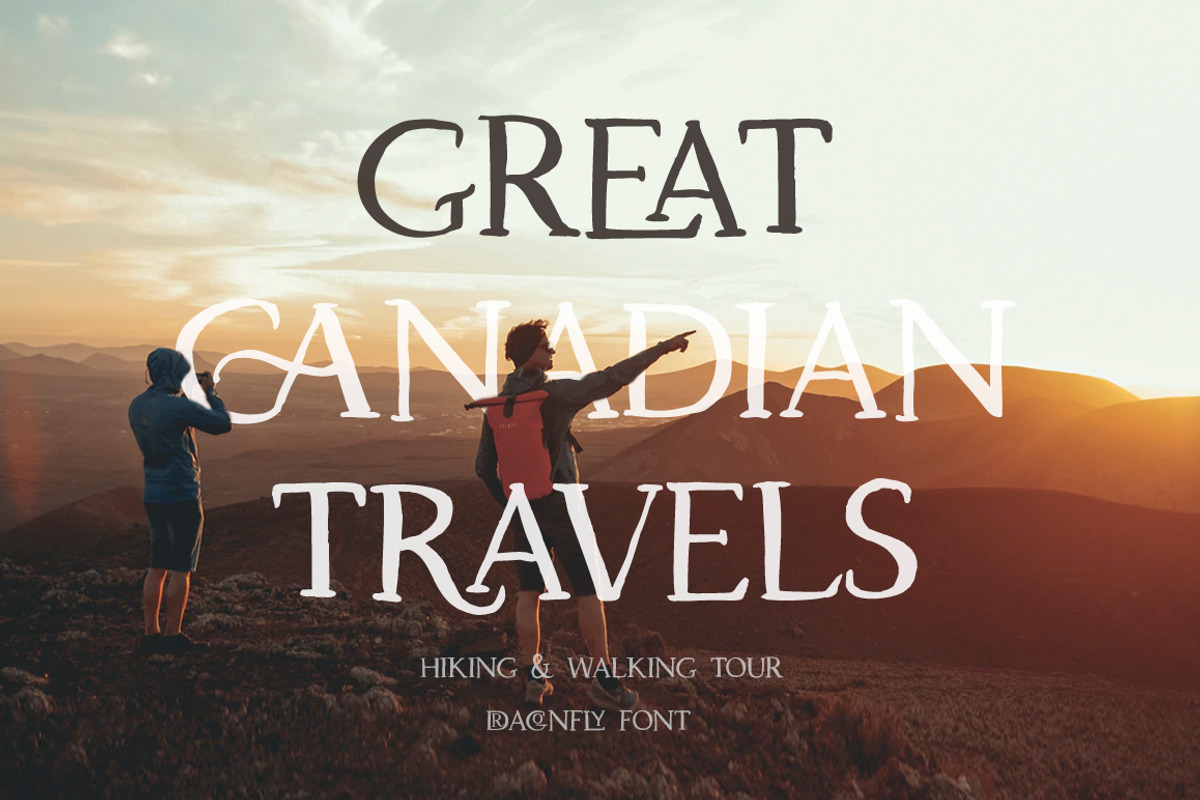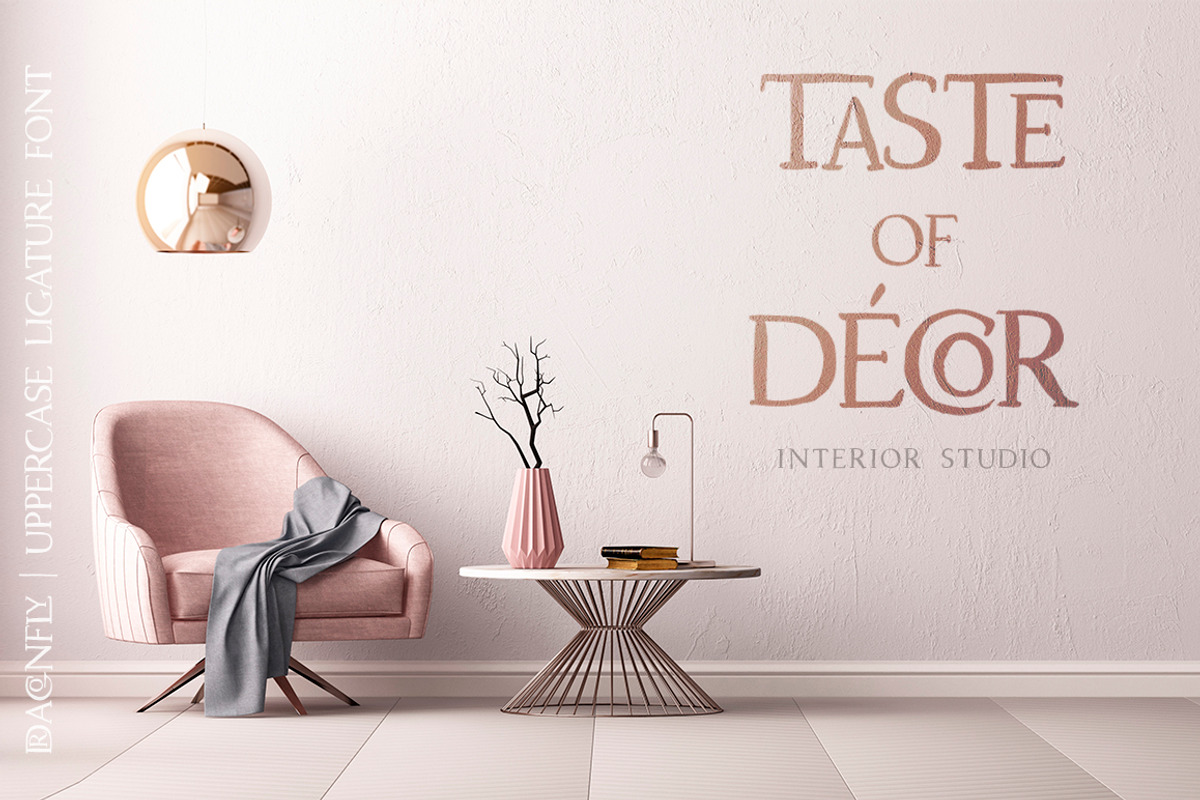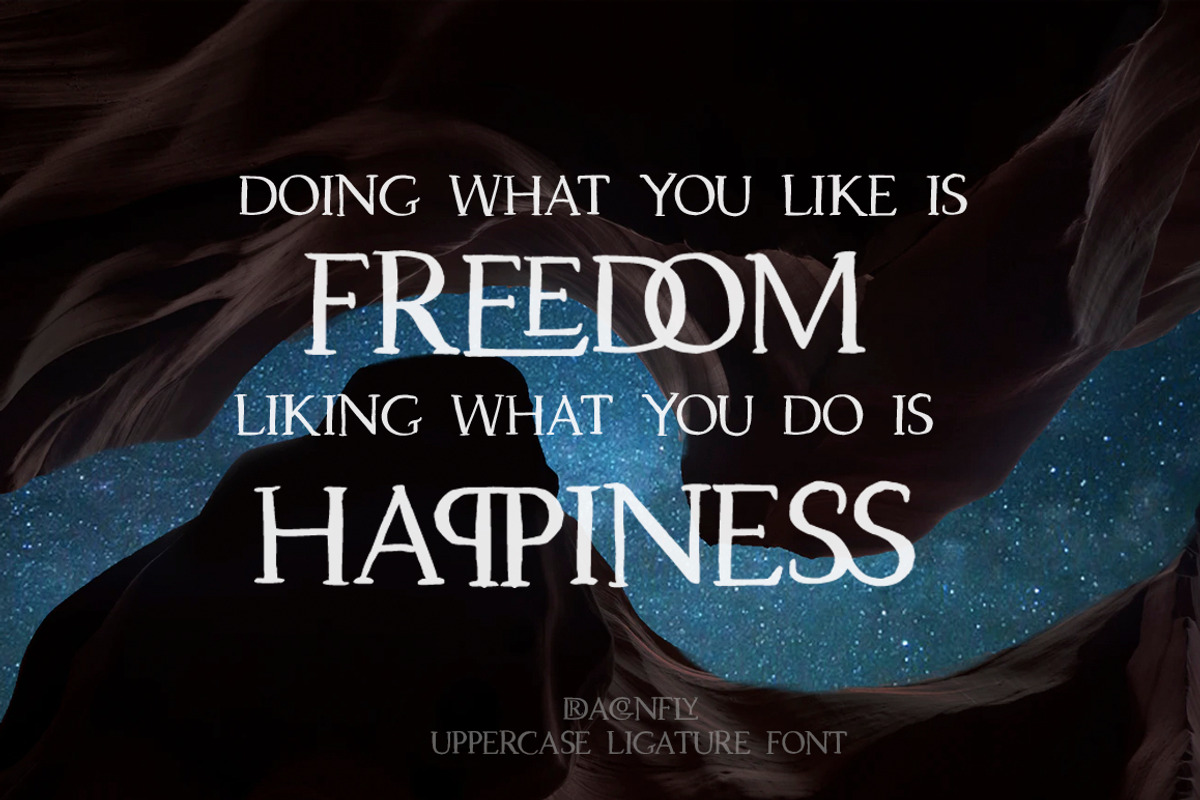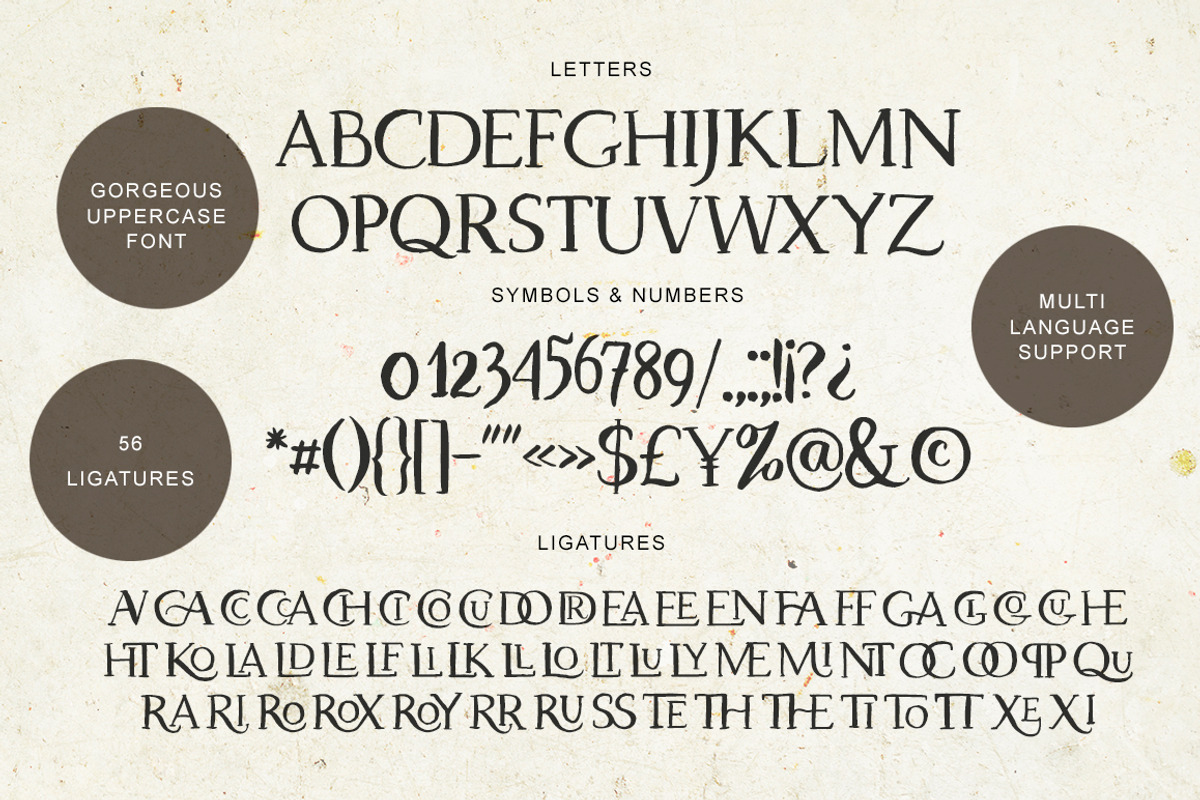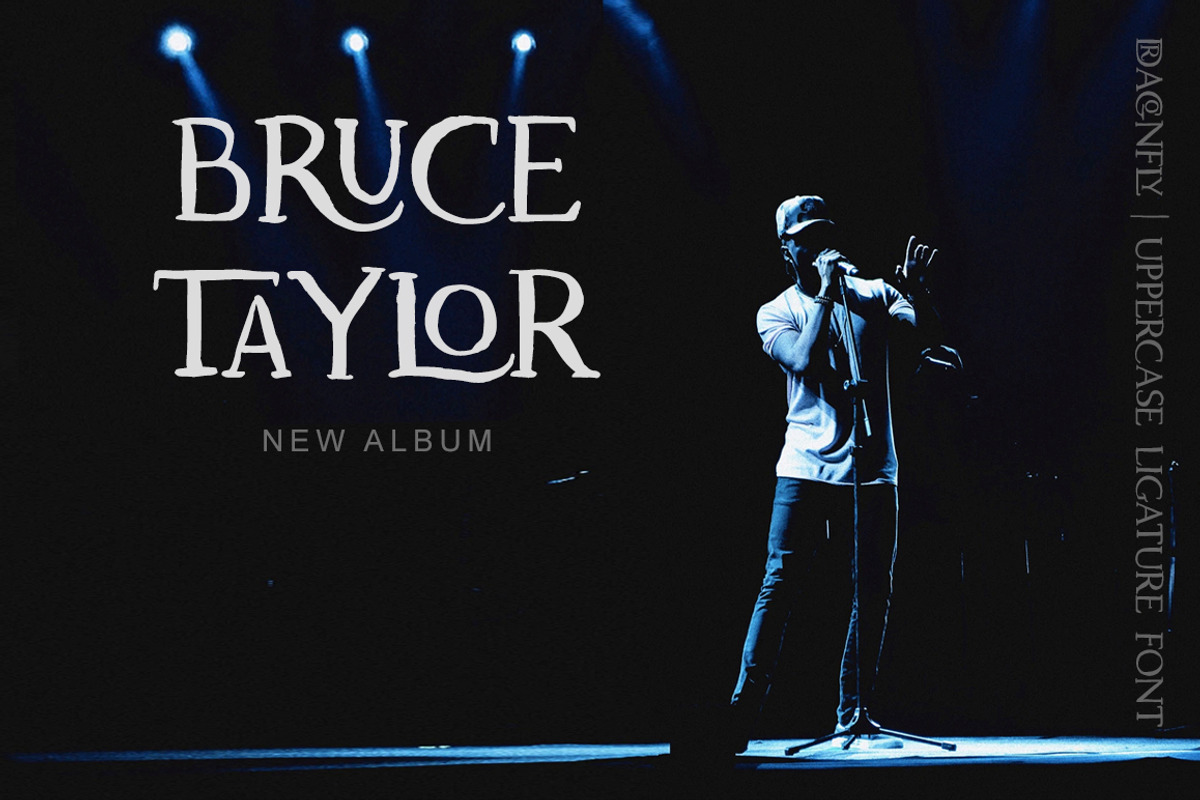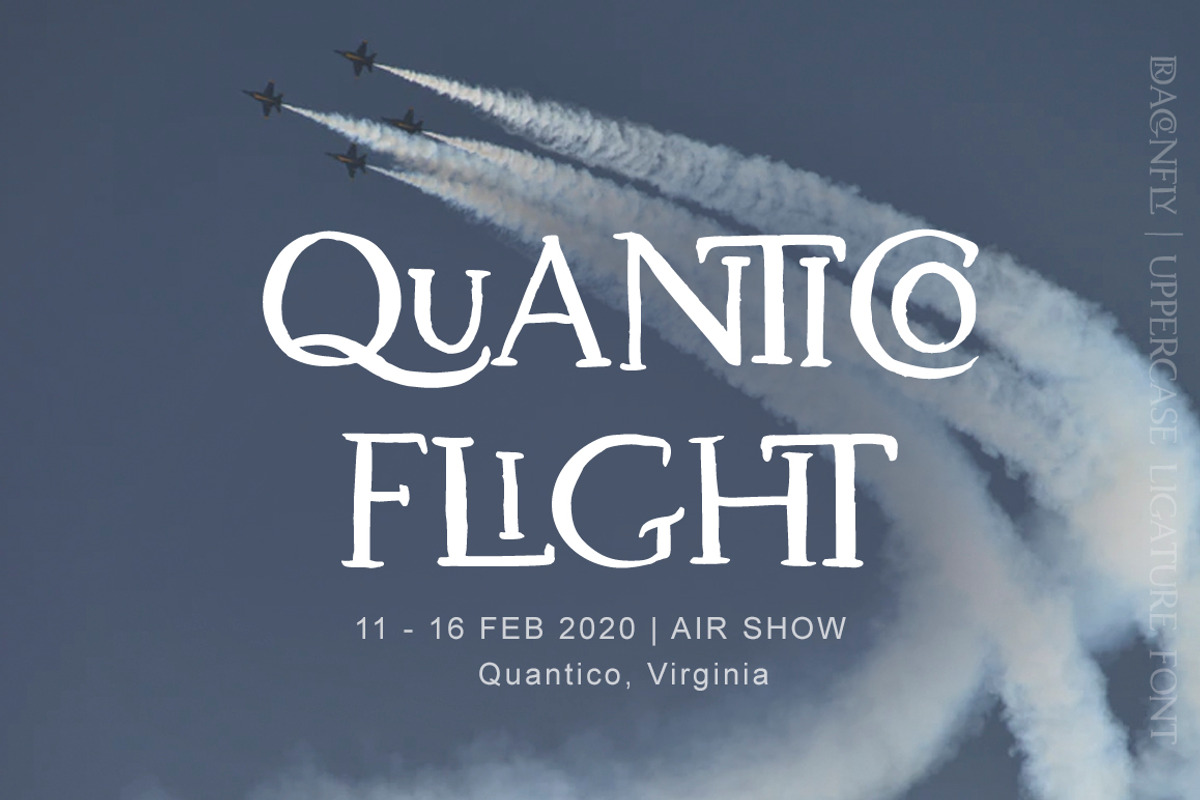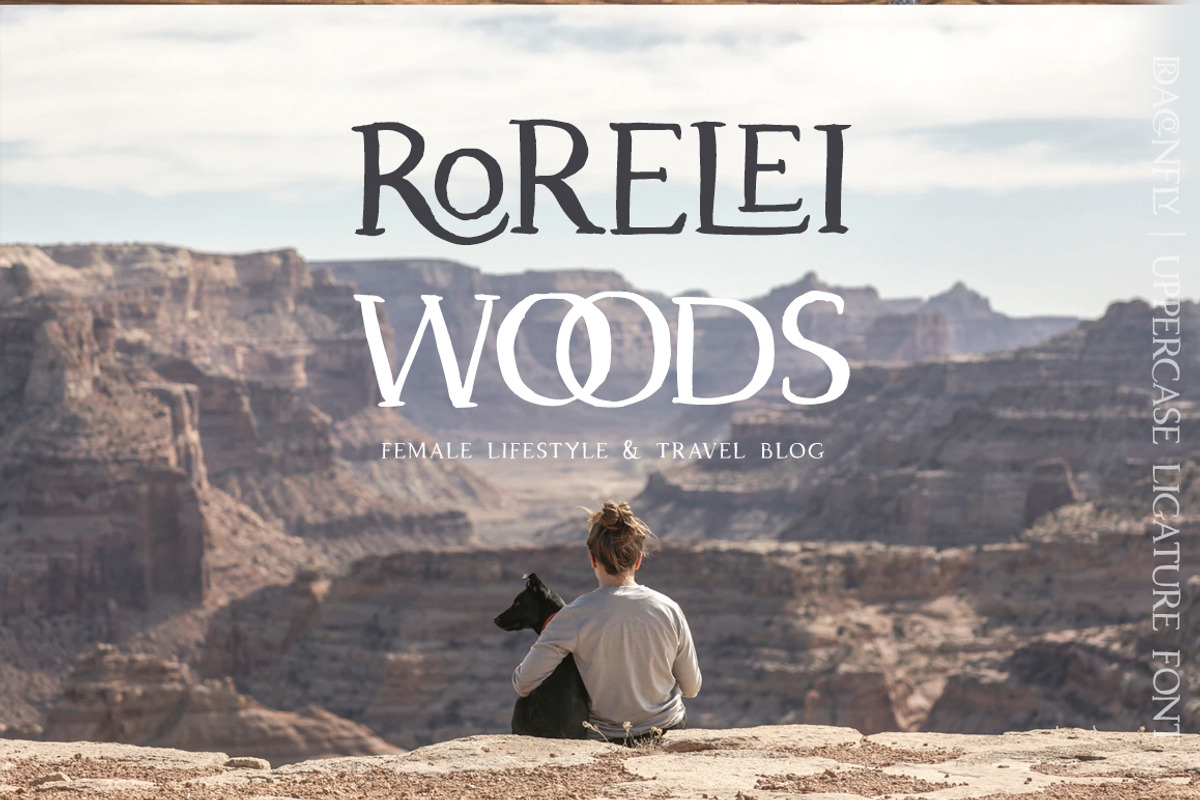
Dragonfly. Uppercase Ligature Font.
Introducing my hand drawn uppercase font with tons of ligatures – Dragonfly.
A luxury hand drawn textured font, this font perfect for logo, invitation, stationery, wedding designs, social media posts, advertisements, product packaging, product designs, label, photography, watermark, special events or anything and fonts are provided in TTF & OTF formats.
Fonts included Multi-lingual support. Western European, Central European and South Eastern European languages are included.